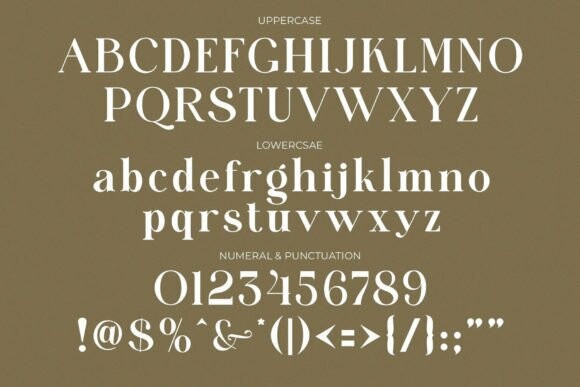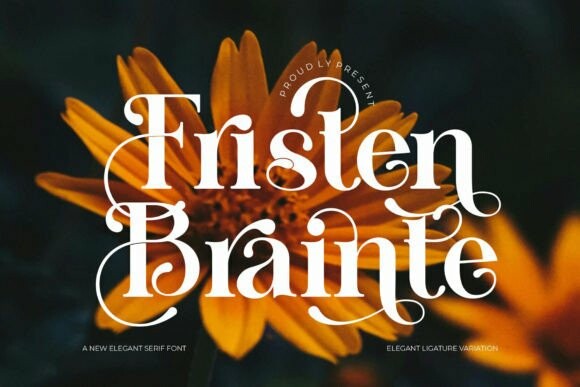
Fristen Brainte Font
Designer: Alfinart
Fristen Brainte Font – Elegant Ligature Serif Typeface inspired by the famous minimalist logo perfect for the purposes of designing templates, brochures, videos, advertising branding, logos, invitations, layout designs, elegant crafting, beauty designs, and others.